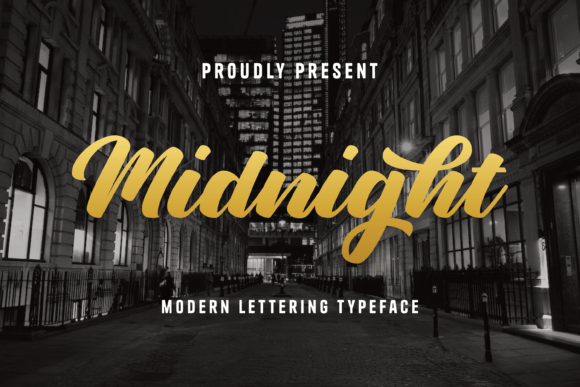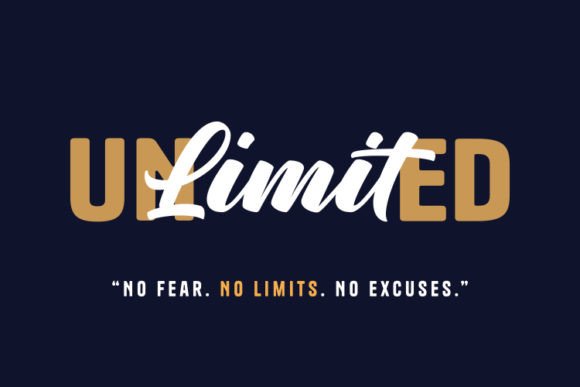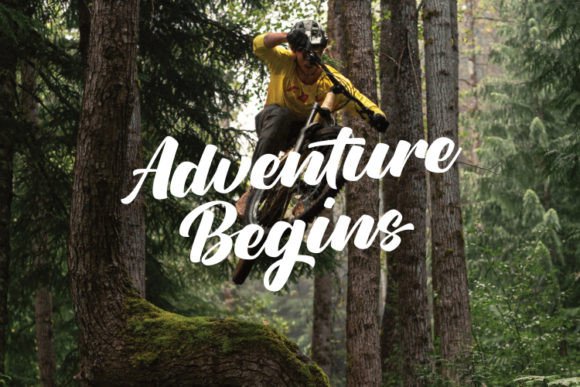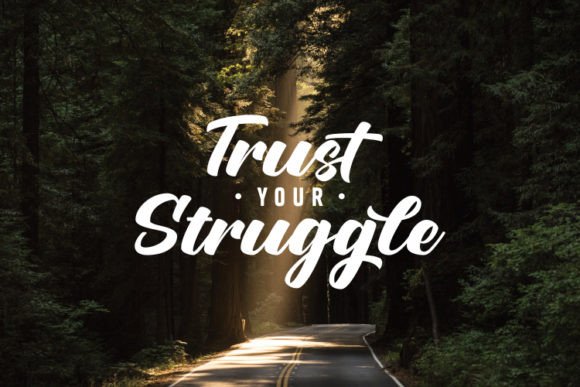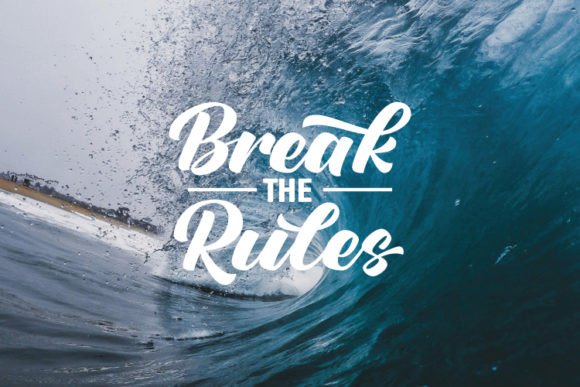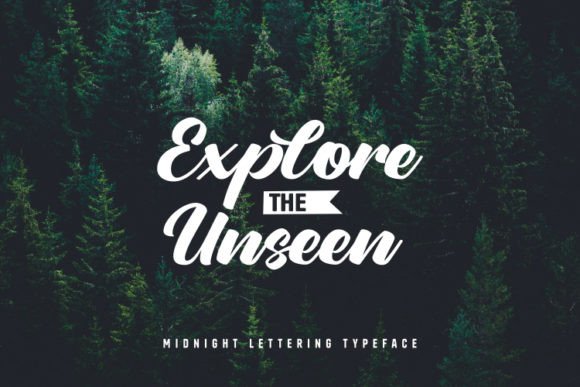
Midnight Font
About Midnight Font
“Midnight” is a contemporary cursive handwritten font that exudes a modern yet nostalgic charm. Its unique characteristics lend a sense of strength, confidence, and dynamism to your designs, making it a versatile choice for a variety of creative projects.
This font’s cursive style adds a touch of elegance and fluidity to your text, making it suitable for a wide range of applications. Whether you’re looking to infuse your designs with a sense of nostalgia or simply want to convey a strong and confident message, “Midnight” can achieve both with ease.
The strong and dynamic qualities of “Midnight” make it ideal for projects that require a bold statement. It can be used effectively in branding, logos, headers, and posters, where it instantly captures attention and leaves a memorable impression. Its modern cursive script adds a contemporary twist to the classic handwritten style, giving your designs a fresh and unique look.
“Midnight” is a versatile font that can adapt to various design needs, including invitations, greeting cards, product packaging, advertisements, and more. Its ability to blend modernity with a touch of nostalgia adds character and depth to your projects, making them stand out in the eyes of your audience.
In summary, “Midnight” is a cursive modern handwritten font that balances strength, confidence, and nostalgia. Its dynamic nature and unique style make it an excellent choice for a wide range of design projects where you want to convey a strong and memorable message while adding a hint of timeless charm.